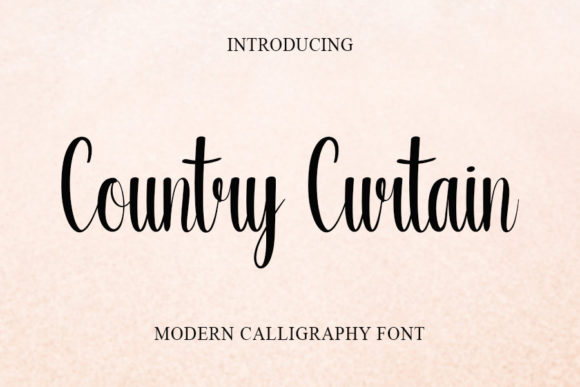
Introducing Country Curtain Font - A Handwritten Masterpiece for a Festive Christmas
In a world where individuality shines, let your creativity bloom with Country Curtain Font, a script font that captivates with its casual charm and handwritten strokes. Inspired by the warmth of Christmas, this font exudes a festive spirit that will elevate your designs to new heights.
Crafted with meticulous care by the renowned K_IN Studio, Country Curtain Font is a true gem for those seeking an authentic and stylish script font. Its contemporary yet timeless design makes it a versatile choice for a wide range of projects, from Christmas cards and invitations to social media posts and website headers.
Step into a world of elegance and sophistication as Country Curtain Font weaves its magic through your words. Its classy calligraphic influences blend seamlessly with a modern twist, creating a captivating visual experience. Each letter dances across the page, carrying a touch of festive cheer and creativity.
With Country Curtain Font, you'll unleash a symphony of emotions, transforming your designs into captivating expressions of joy and celebration. Its flowing lines and graceful curves evoke a sense of nostalgia and warmth, making it the perfect font for capturing the essence of Christmas.